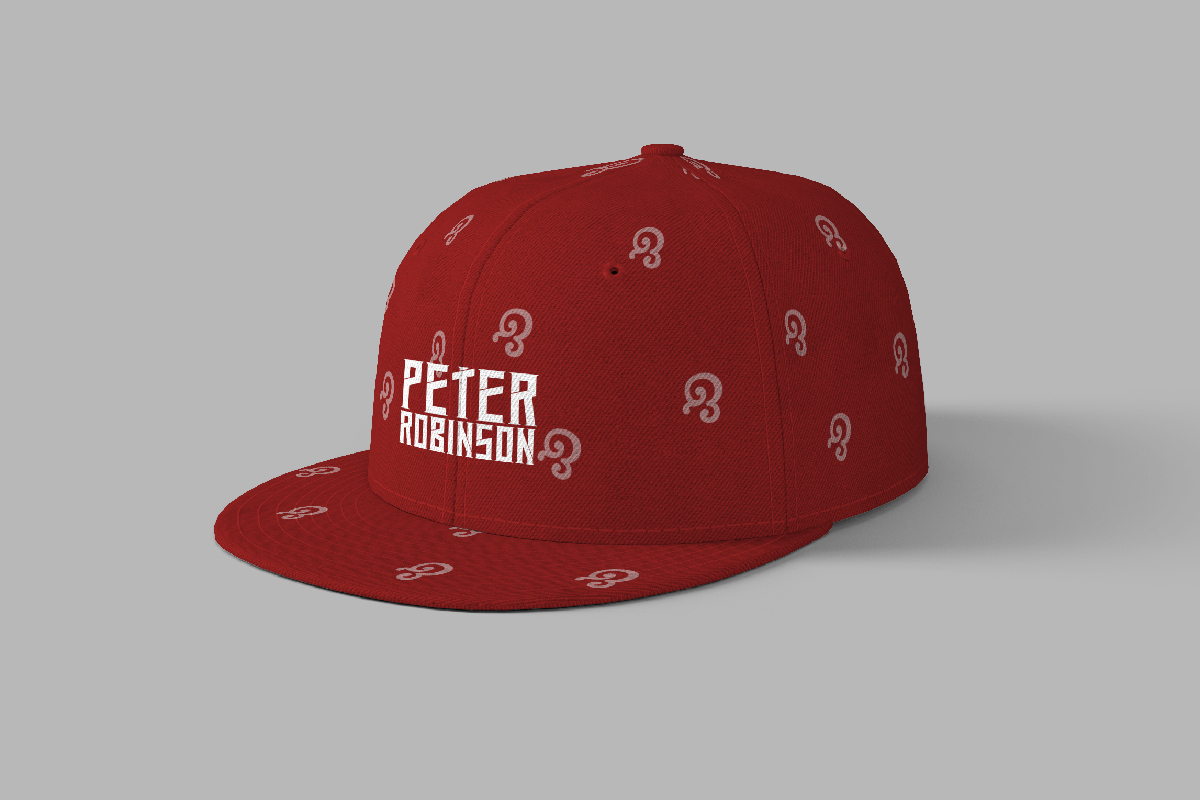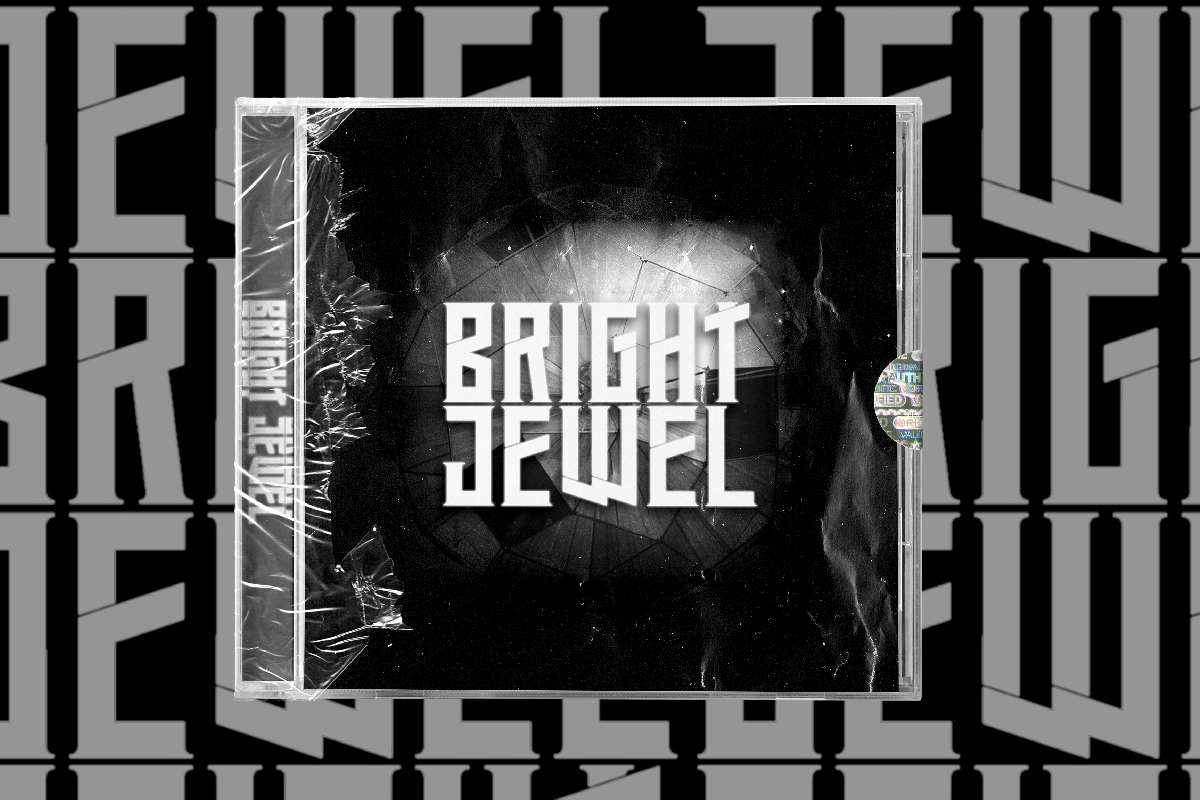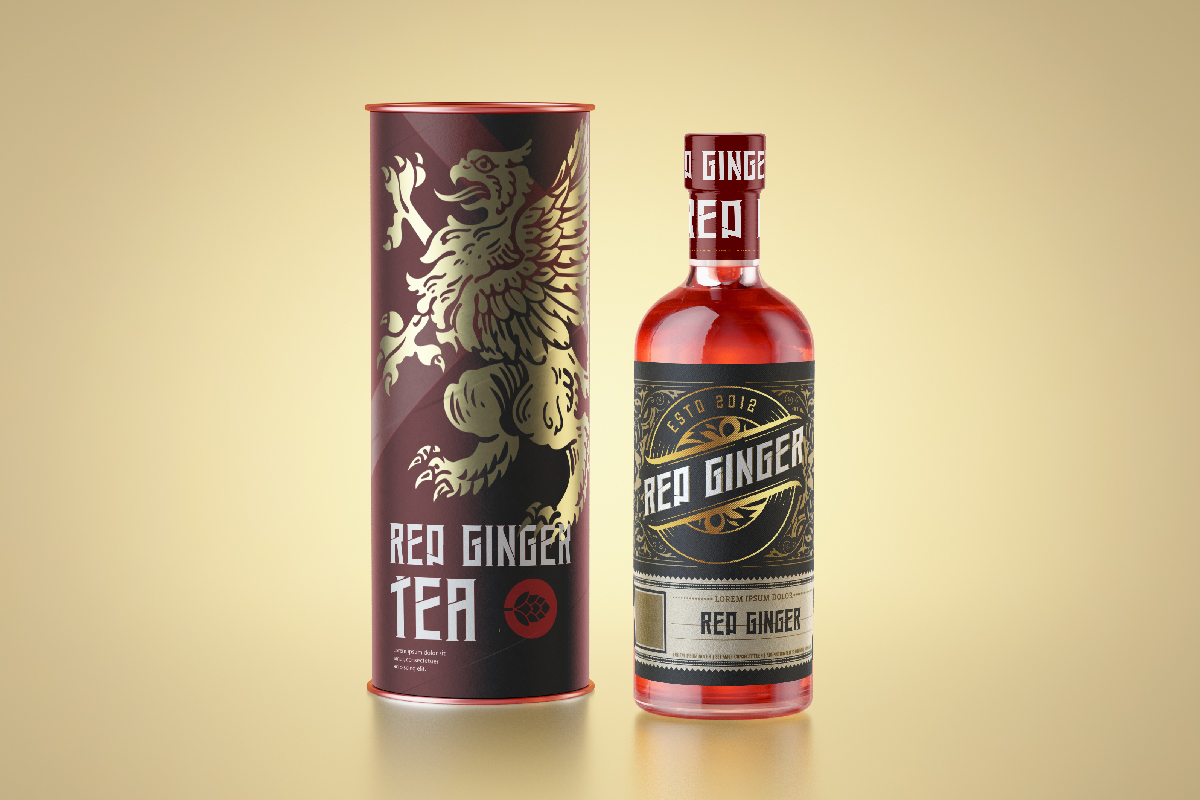
Heistgate Font
Heistgate Display Font
It’s a sporty sans serif display font family. The style of this font are modern, techno, strong, masculine, sporty etc. Great for logo, brandings, headlines, signage etc. Heistgate Font come with strong unique characters that will make your designs standout. The font will be awesome for many industries including : sports, techno, festival, games, movies etc